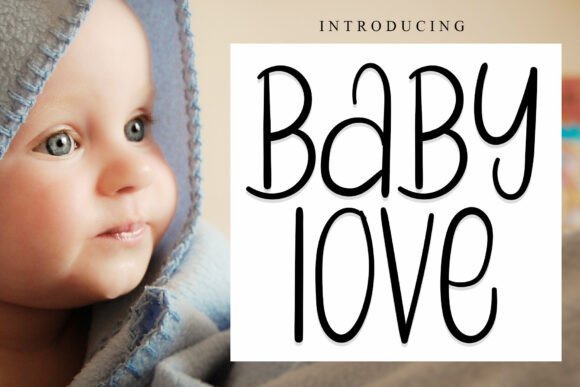
Handwritten Perfection: Unveiling the Baby Love Font
There’s something special about holding a handwritten letter or card from a loved one – the imperfections, the character, and the love that goes into every stroke of the pen. This is the essence of the Baby Love Font, a beautiful and elegant typeface that captures the essence of handwritten perfection.
Perfect for wedding invitations, greeting cards, billboards, logos, business cards, and any other design that requires a touch of whimsy and romance, the Baby Love Font is a valuable asset for designers looking to add a personal and emotional touch to their work. With its varied baseline and natural, hand-made touch, this font is sure to create spectacular creations that will make your ideas look more real.
Baby Love Font Key Features
- Unique Characteristics: Whimsical, cursive, handwritten style with a touch of femininity and playfulness, ideal for baby-related designs and products
Baby Love Font Review
Overall, I have mixed feelings about the Baby Love Font. While it has some endearing qualities, it also has its limitations.
- ✨ The font’s playful and whimsical design makes it perfect for baby-related projects or brands targeting young parents.
- ✨ The font’s rounded edges and soft lines give it a friendly and approachable feel.
- ✨ The font is highly legible, making it easy to read even at smaller sizes.
- ⚠️ The font’s design may be too cutesy for some audiences, which could detract from its professionalism.
- ⚠️ The font lacks versatility and may not be suitable for a wide range of projects.
- ⚠️ The font’s design may be too reminiscent of other fonts, which could make it less unique.
In conclusion, the Baby Love Font is a fun and playful font that is well-suited for specific projects. However, its limitations may make it less versatile for other uses. If you’re looking for a font that’s perfect for baby-related projects or young audiences, this font may be a good choice. However, if you need a font that’s more professional or versatile, you may want to consider other options.
Tips for Getting the Most Out of Baby Love Font
For the best results, use Baby Love Font in combination with other baby-themed graphics and images to create a cohesive design. Experiment with different font sizes, colors, and styles to add visual interest to your designs. Additionally, consider using the font in conjunction with other design elements, such as patterns, textures, and shapes, to create a unique and engaging design.
Common Use Cases for Baby Love Font
Baby Love Font is ideal for a variety of baby-themed projects, including:
- Baby shower invitations and decorations
- Baby clothing and accessory designs
- Nursery decor and wall art
- Baby gift tags and cards
- Social media graphics and promotions